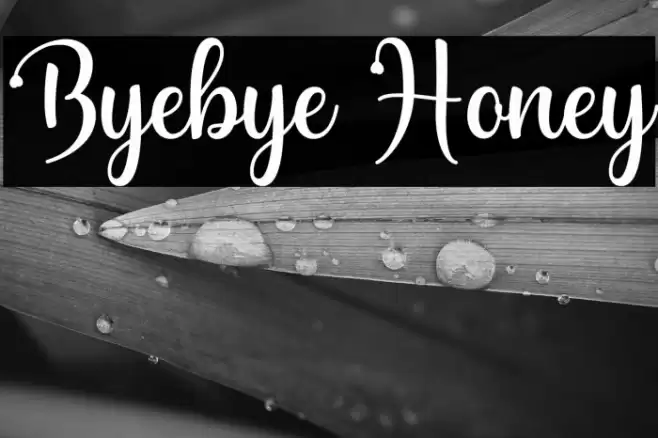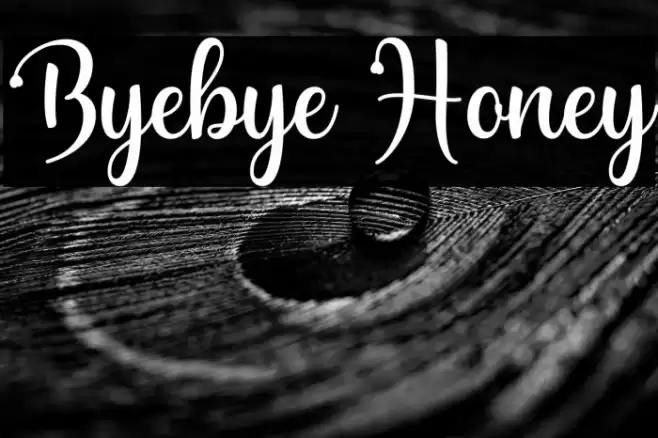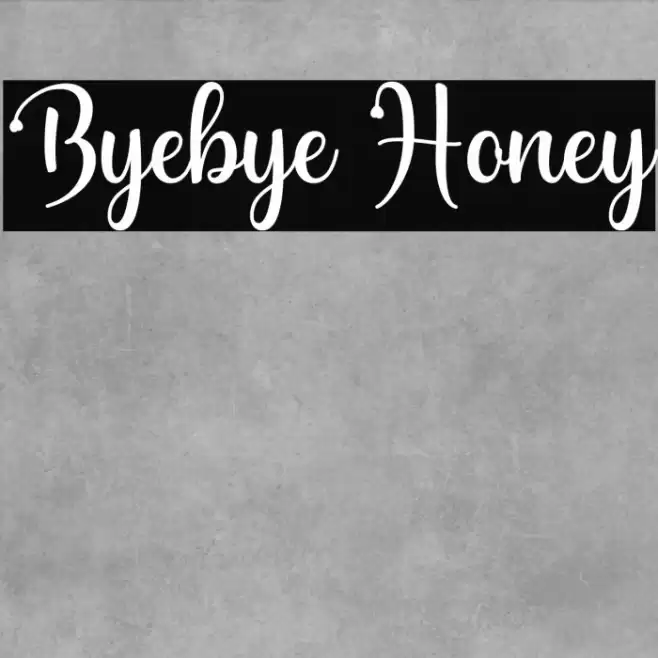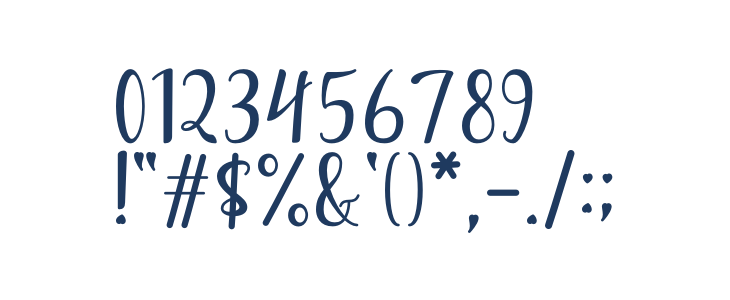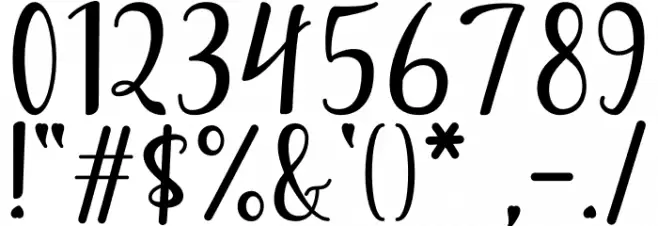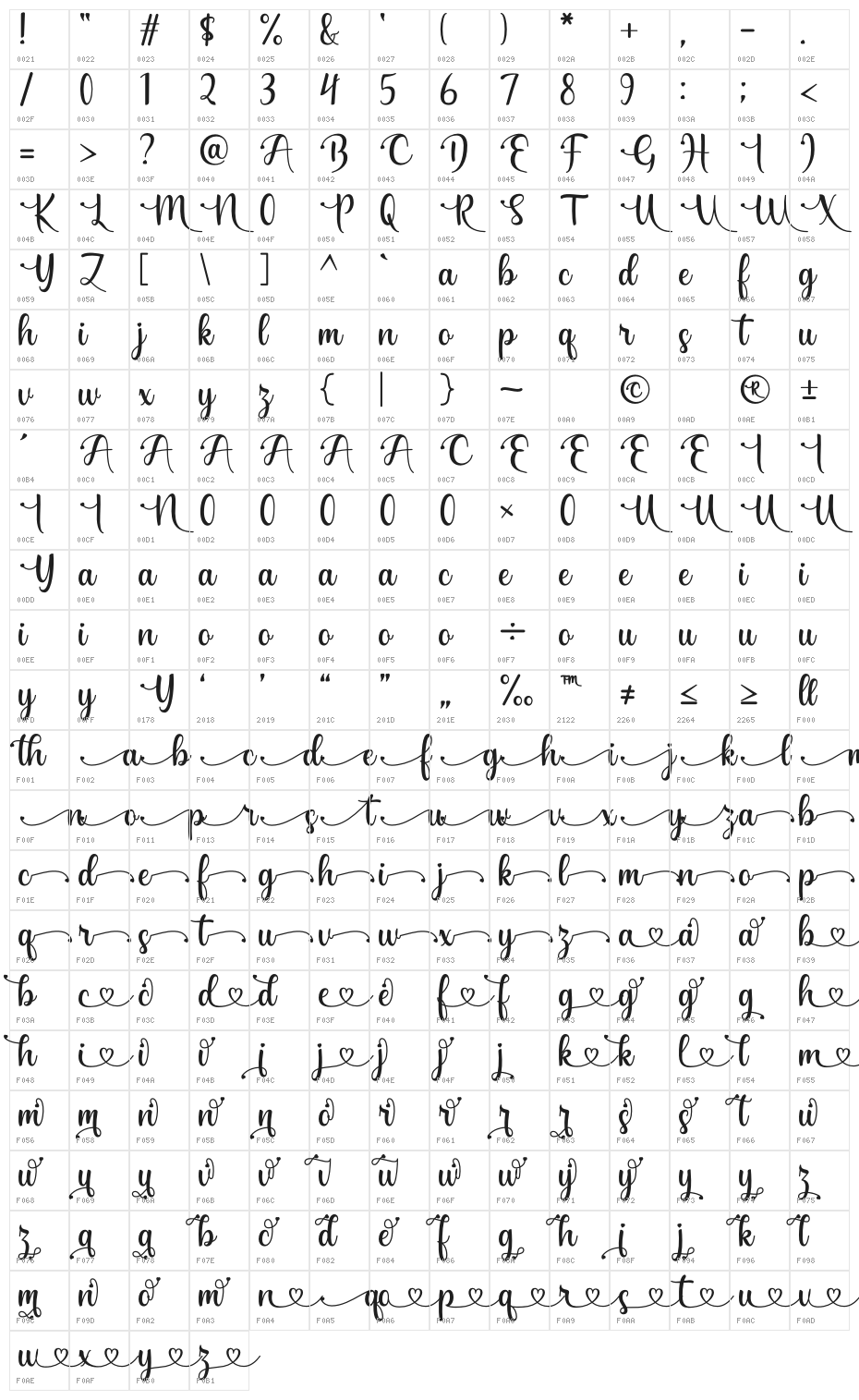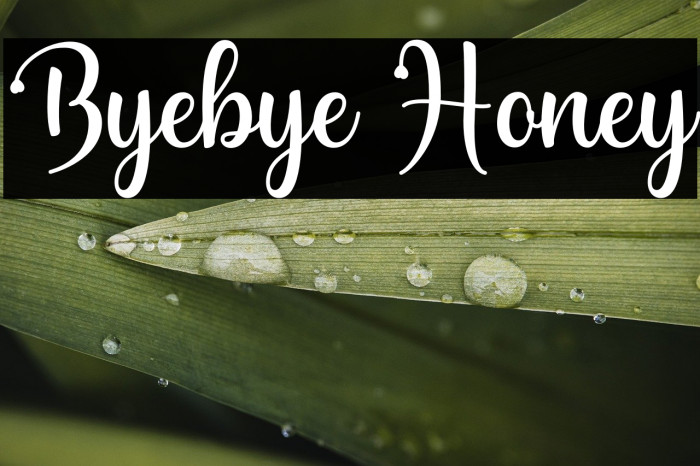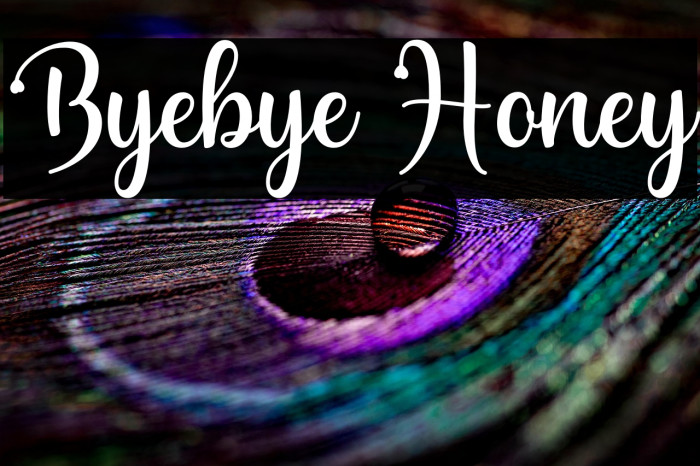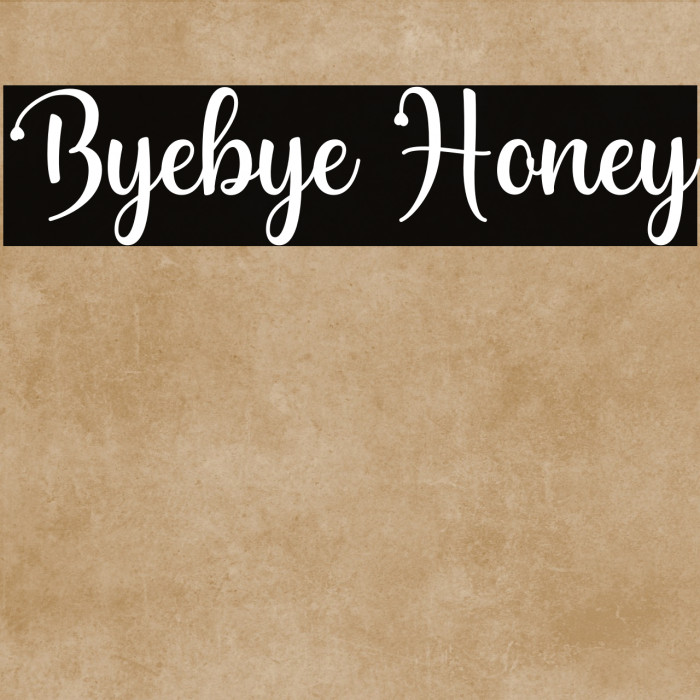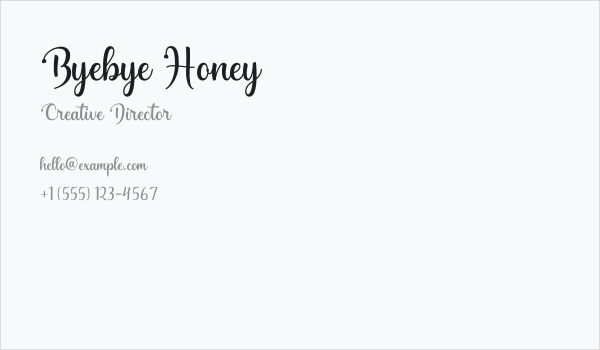
Byebye Honey Font
Byebye Honey Description
This font features a playful and whimsical script style with a handwritten feel. The uppercase letters are characterized by elegant swashes and loops, giving them a decorative flair. The lowercase letters maintain a smooth, flowing appearance, enhancing the overall casual and friendly vibe. The numerals are consistent with the script style, featuring slight curves and a uniform thickness. Special characters are creatively integrated, maintaining the font's cohesive look. This font is ideal for projects that require a personal touch or a sense of creativity and fun.
A playful script font with decorative swashes and a handwritten feel from Regular fonts.
- Proposed Projects: Greeting cards, invitations, personal branding, creative posters, and social media graphics.
- Use Case: Logos, Headlines, Invitations